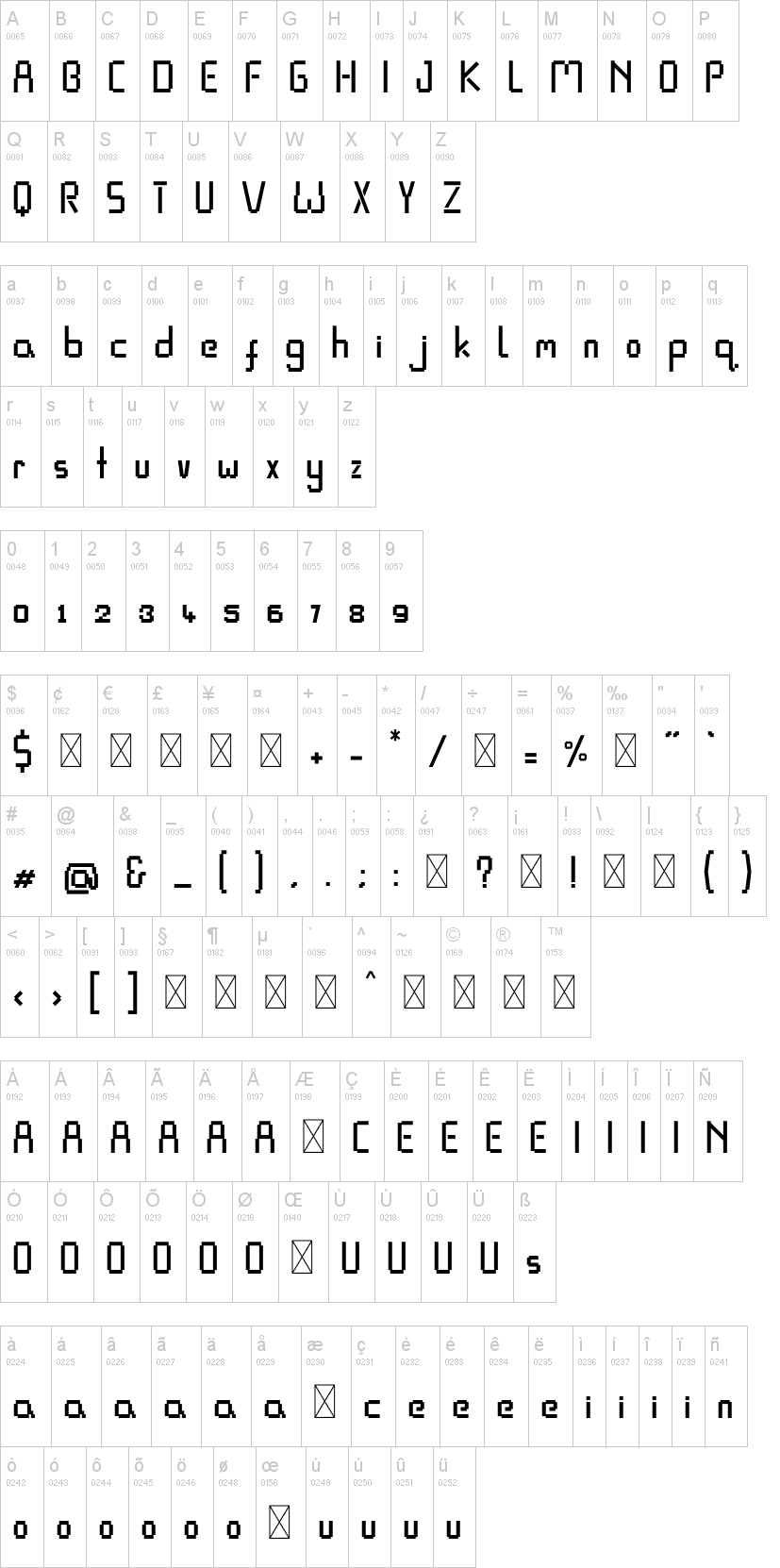
Note of the authorThe Pixel Rand is made with medium size pixels with random positioning. It has a modern style and will perfectly match for the new pixel based video games, videos, and old stuff.